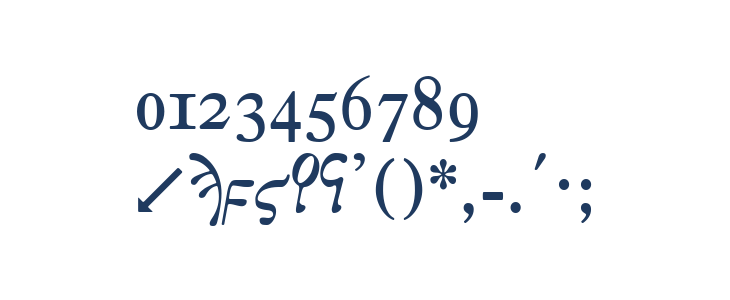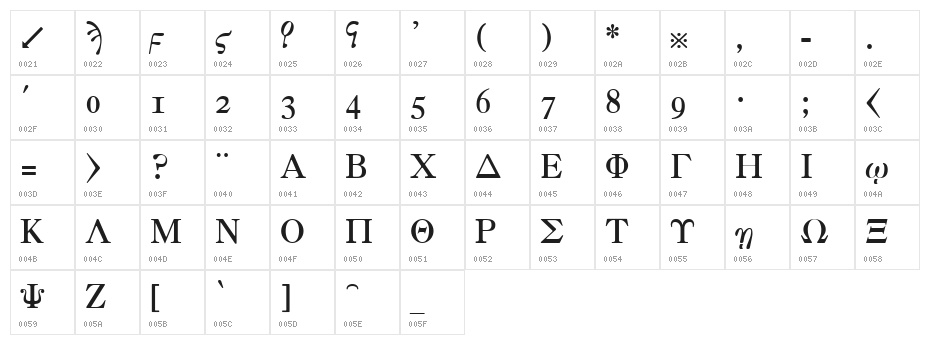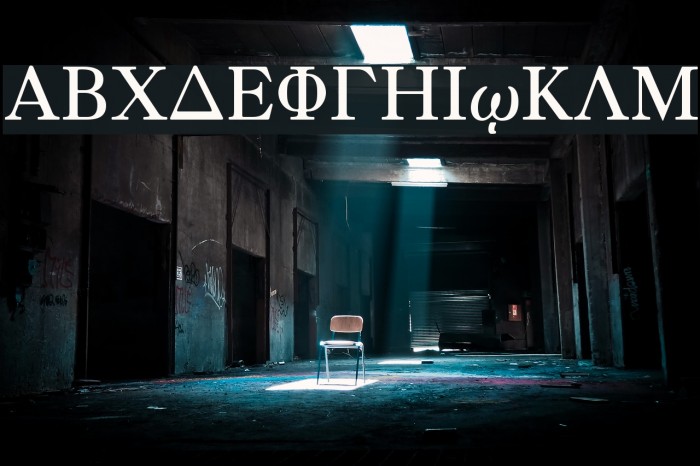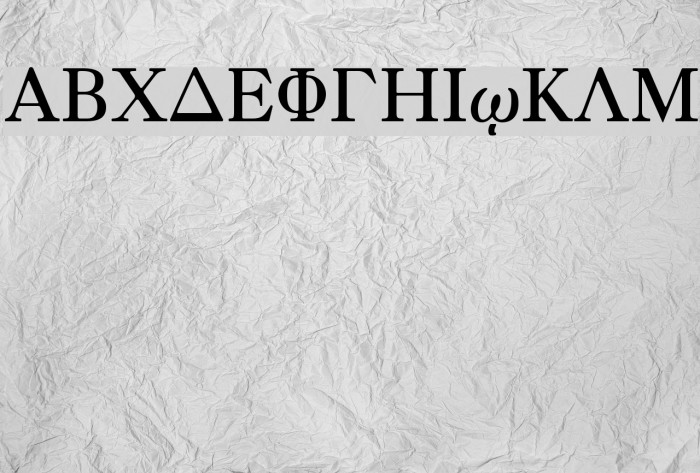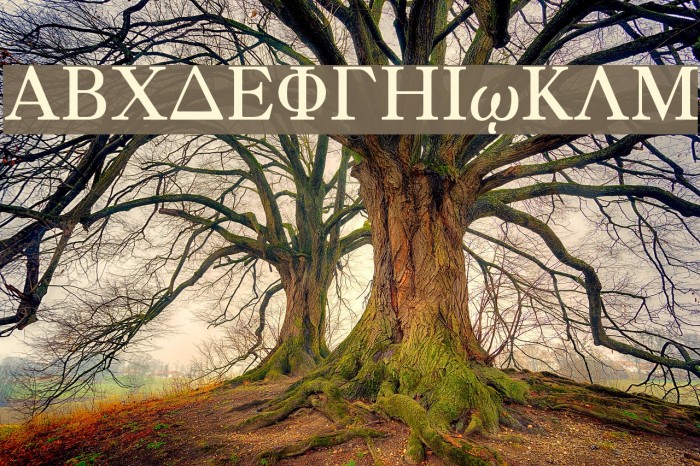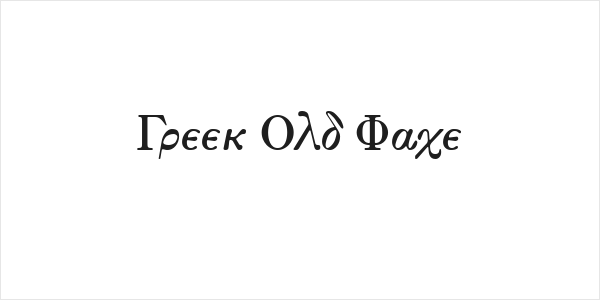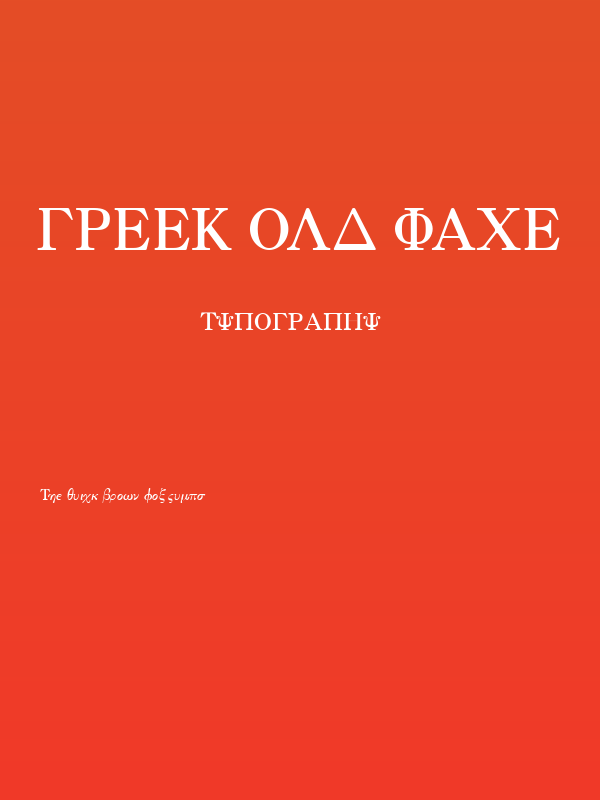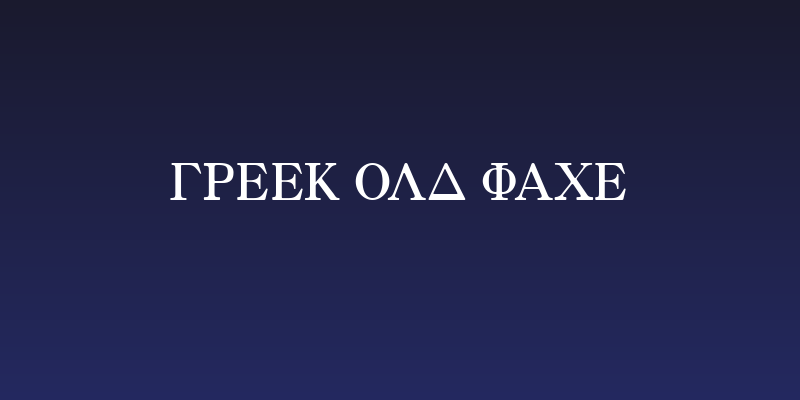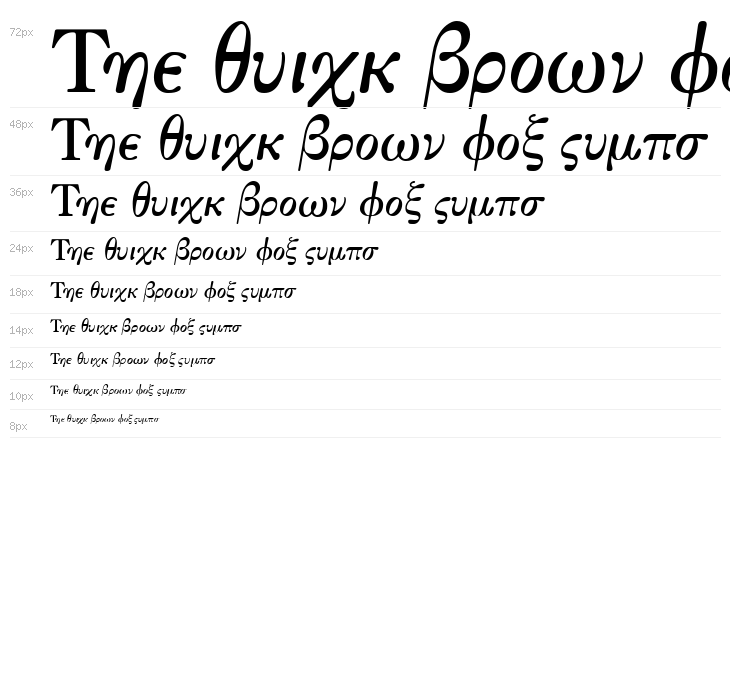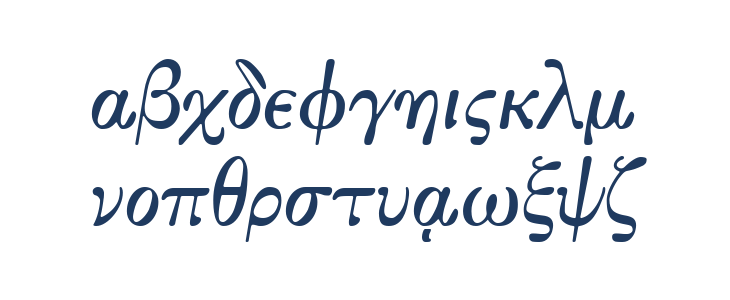
Greek Old Face Font
Greek Old Face Description
This font features a classic Greek style with a blend of traditional and modern elements. The uppercase letters are bold and striking, with distinct serifs that add a touch of elegance. The lowercase letters have a more fluid and cursive appearance, providing a nice contrast to the structured uppercase. The numerals are clear and easy to read, maintaining the serif style. Special characters are well-integrated, matching the overall aesthetic. The font's design is both sophisticated and versatile, making it suitable for a variety of applications.